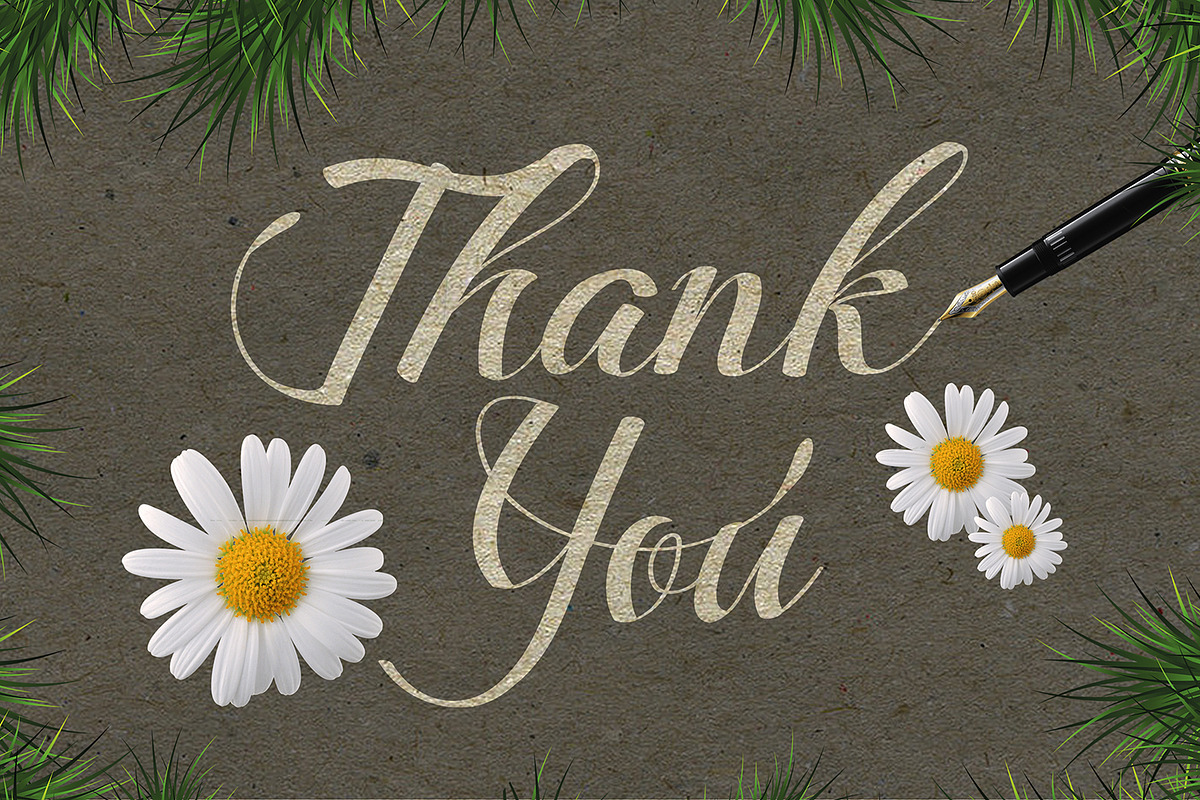
Merthy Script
Hello I'm really excited to introduce Merthy script font with cool character! Merthy come more than 350 glyphs and this perfect for poster design, book covers, merchandise, fashion campaigns, newsletters, branding, advertising, magazines, greeting cards, album covers, and quote designs and more.
- International Glyphs